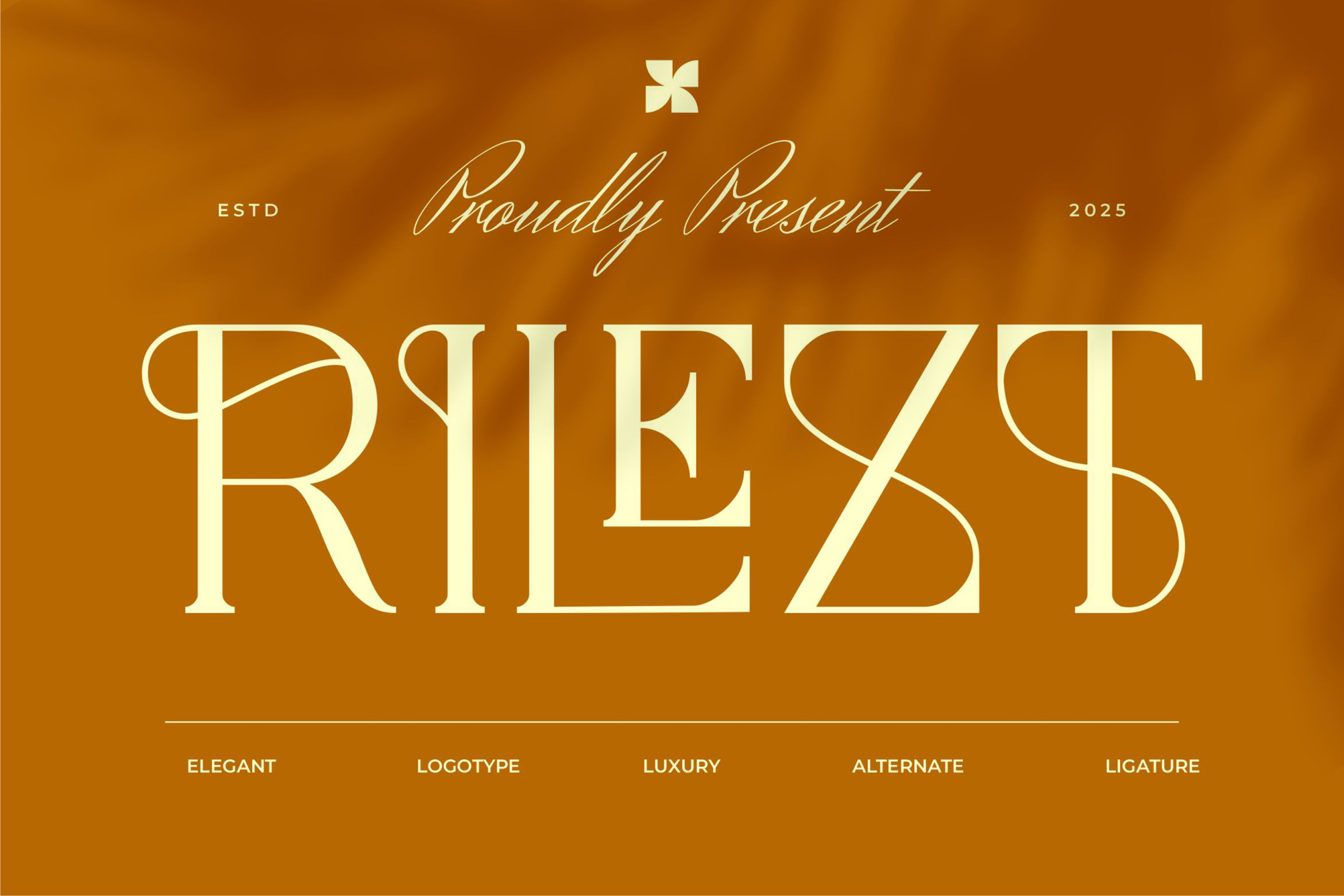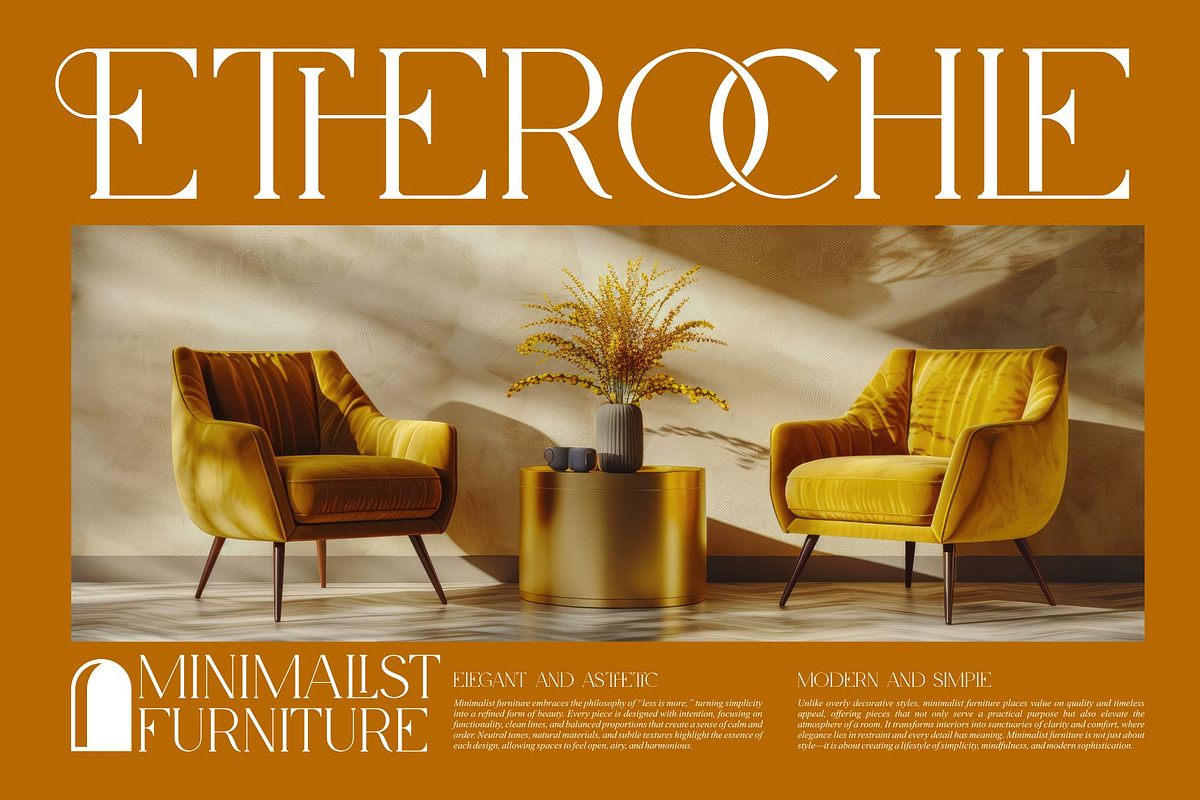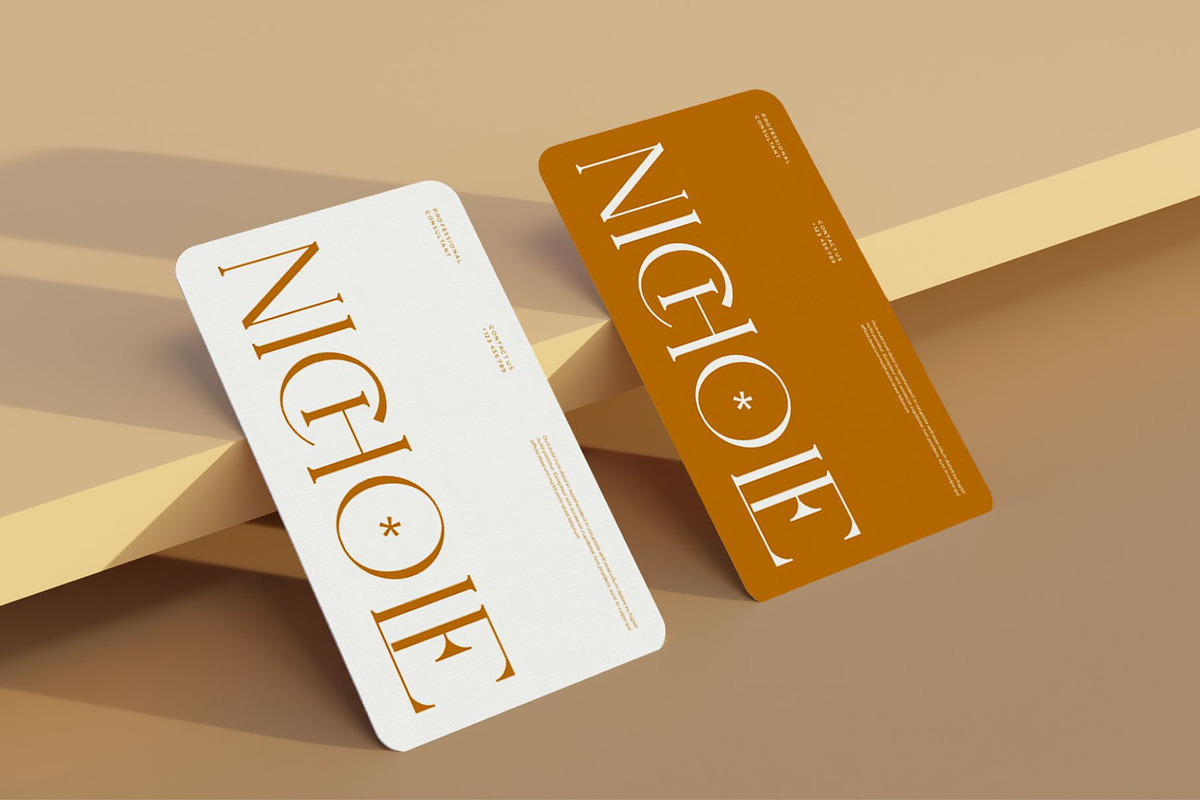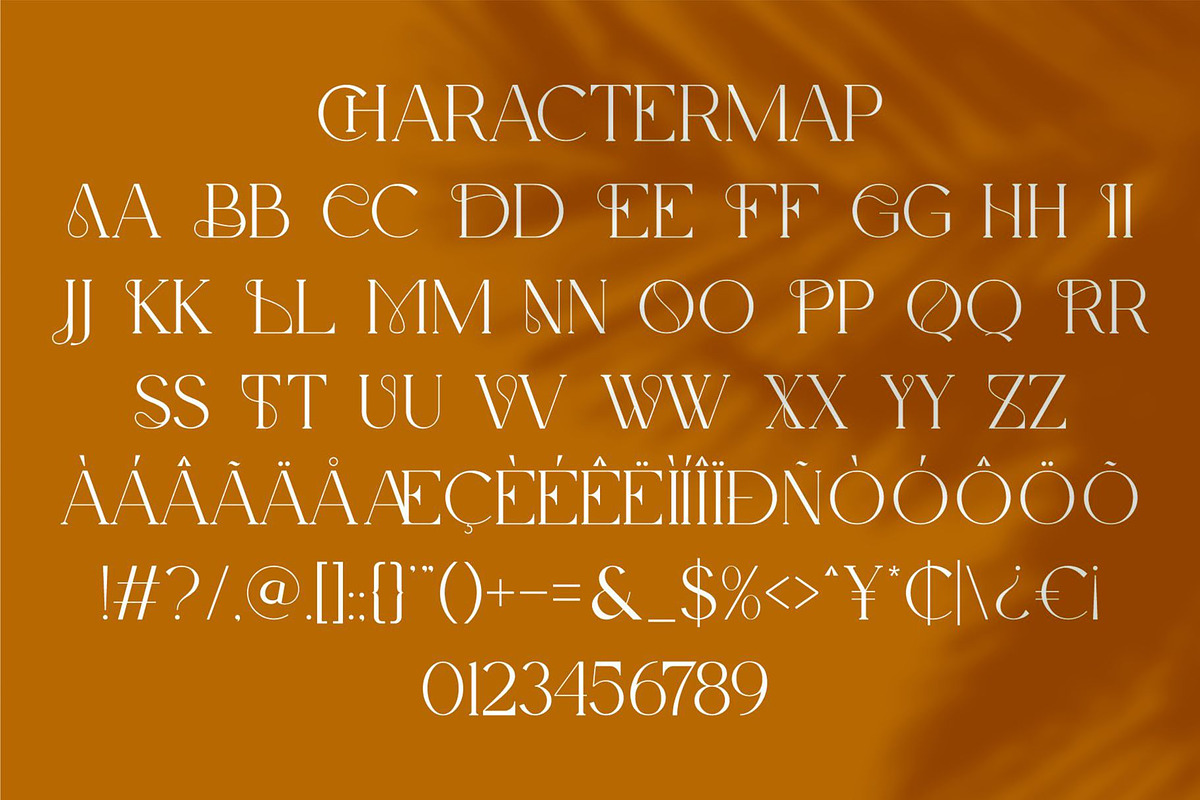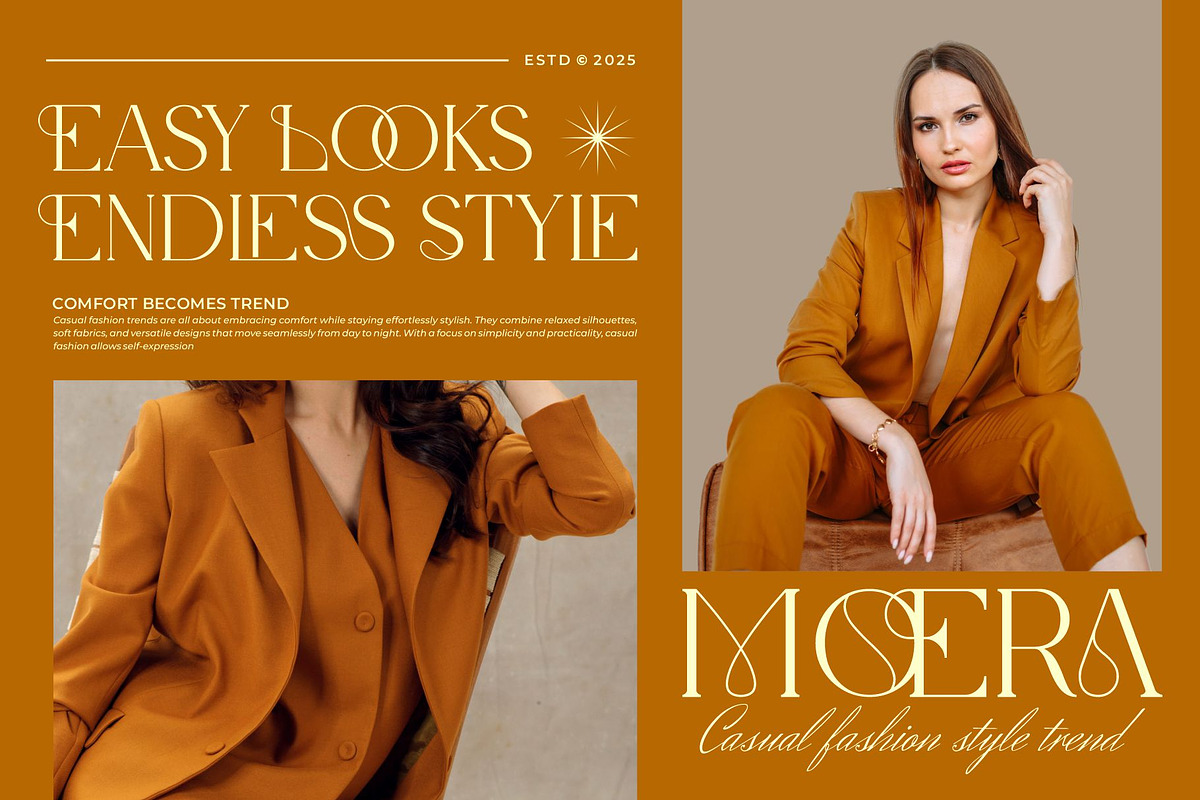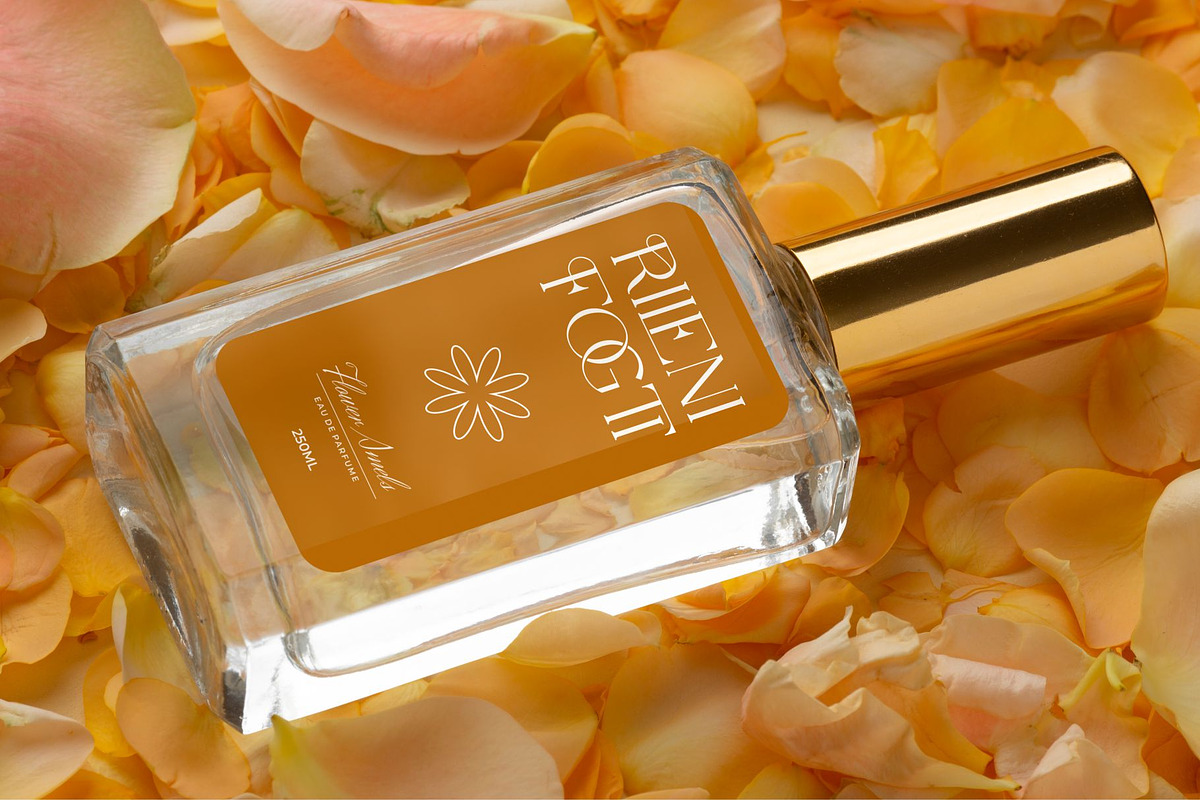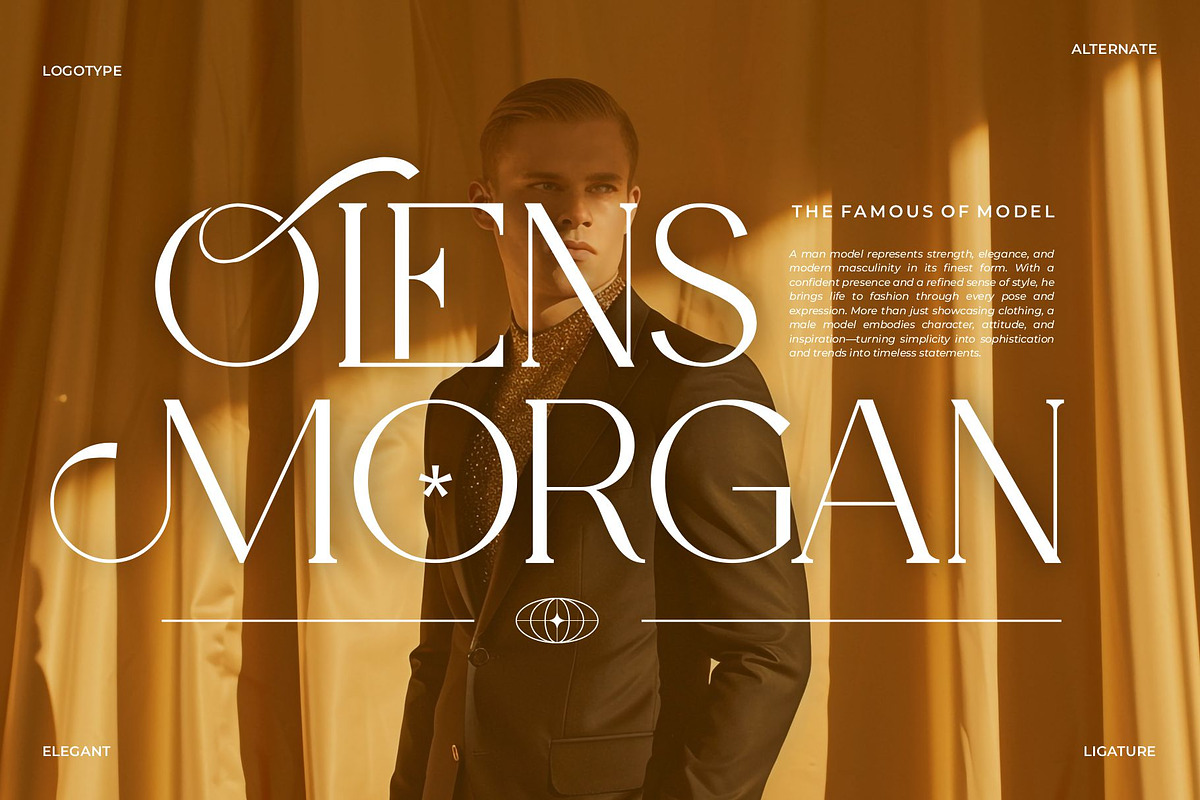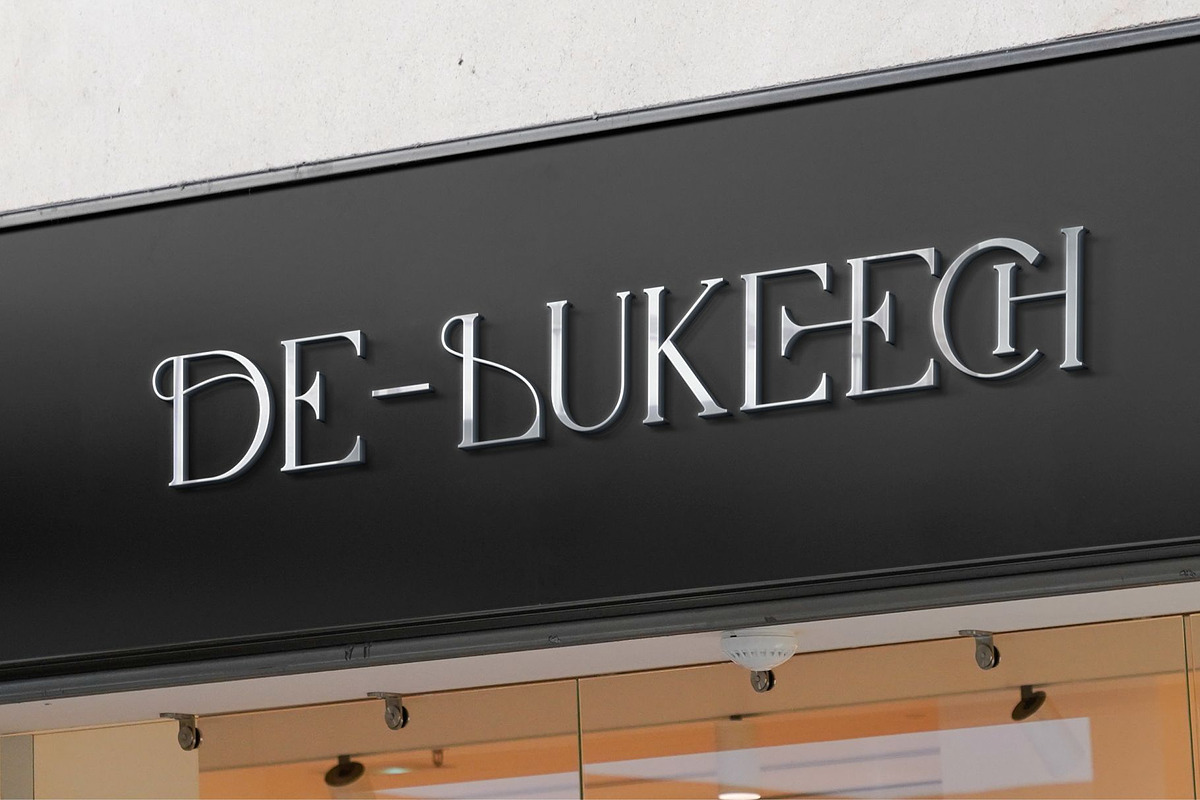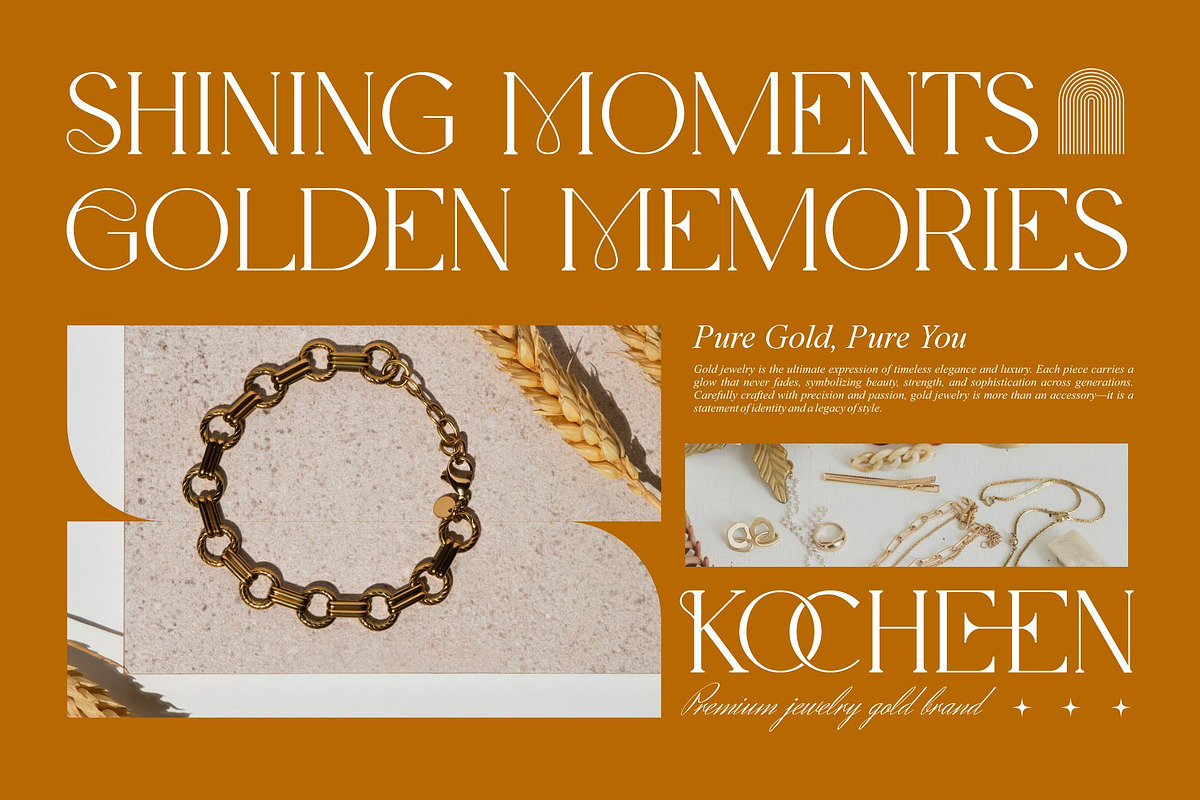
Rilezt || Modern Classy Serif Font
Rilezt Allcaps Serif is a modern and classy font type for all branding and logo designs. This modern and classy Serif font has a beautiful character. This font is suitable for invitation card designs, cool logos, movie titles, movie names, business cards, book titles, brand names, and various other designs. Rilezt Allcaps Serif is a smooth serif font that exudes sophistication and the moment. Its stylish ligatures make this font a perfect partner for any project.
- Ligature and alternate